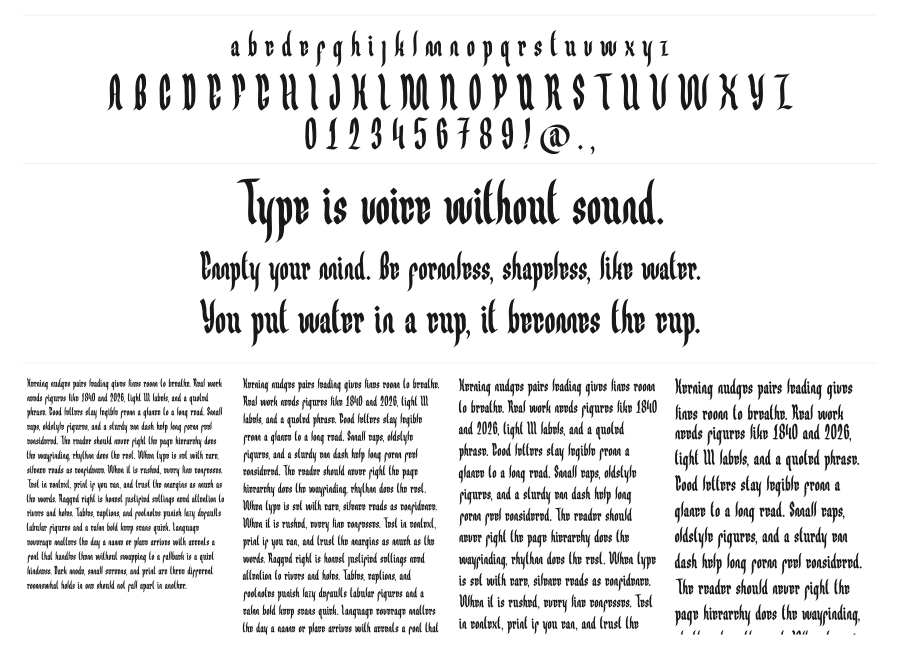
Germany Gothic
by Mfth Std.
Germany Gothic is a heavy blackletter display face built on sharp, pointed gothic forms with strong high-contrast strokes. The dense weight and aggressive angularity give it an unmistakable medieval German character, sitting comfortably alongside metal album artwork, tattoo lettering, and heritage branding. Tight and monumental at large sizes.